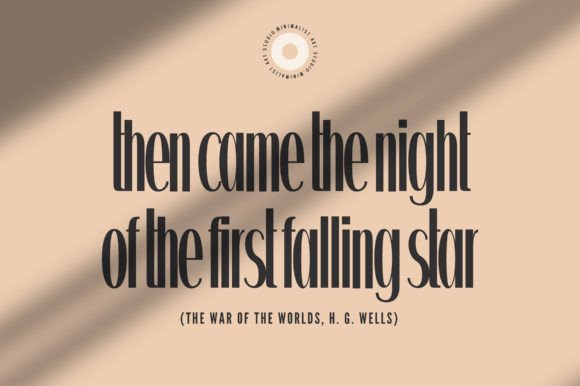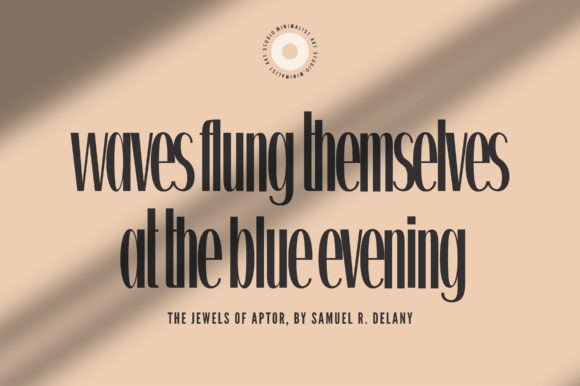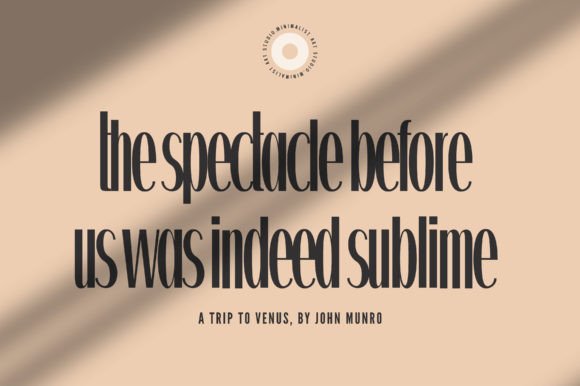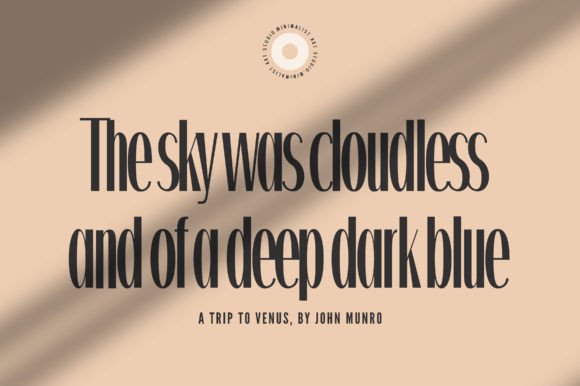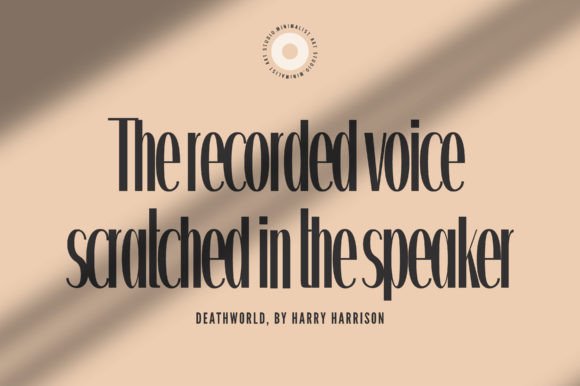
Introduction to Maurili Font
Introducing Maurili, an elegant and sophisticated sans-serif condensed font that will elevate your designs to the next level.
Mauriliโs minimalist design and clean lines create a timeless look that is perfect for modern designs Mauriliโs sleek and sophisticated design will give your designs a touch of elegance and professionalism, making it perfect for corporate branding, high-end fashion, and luxury products.